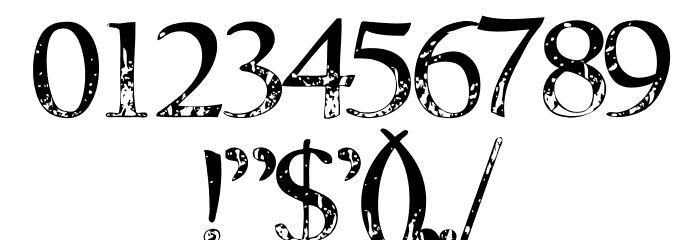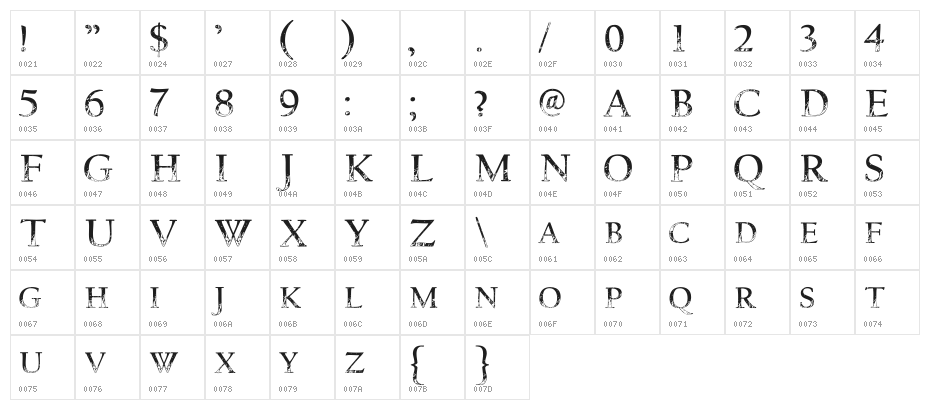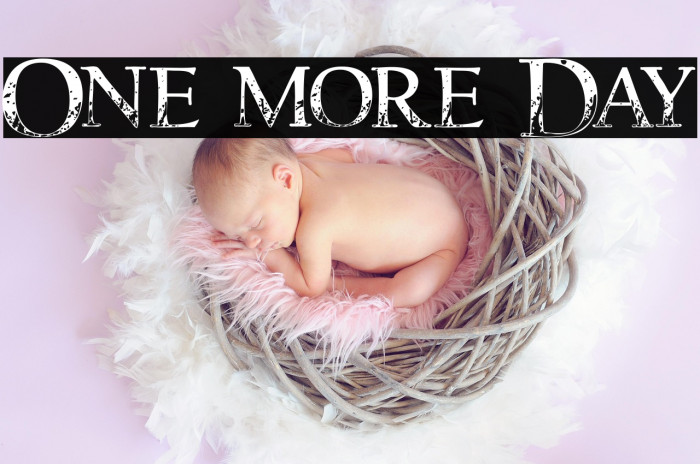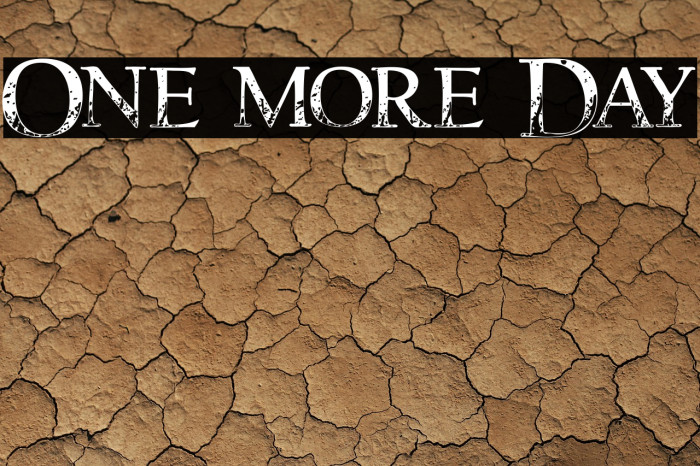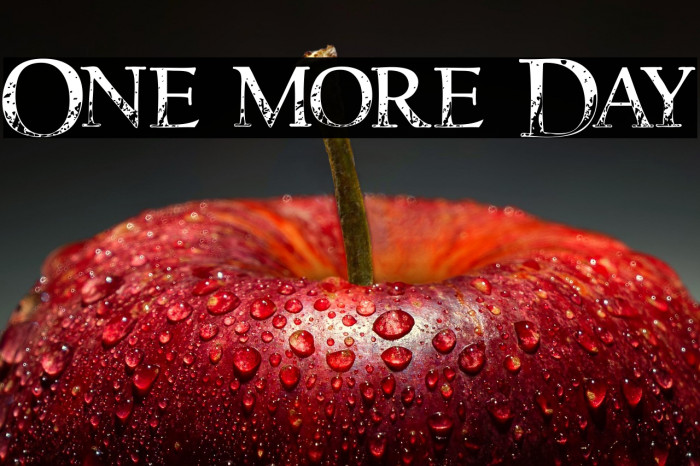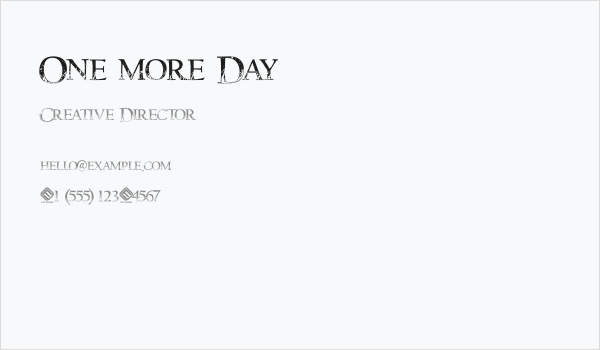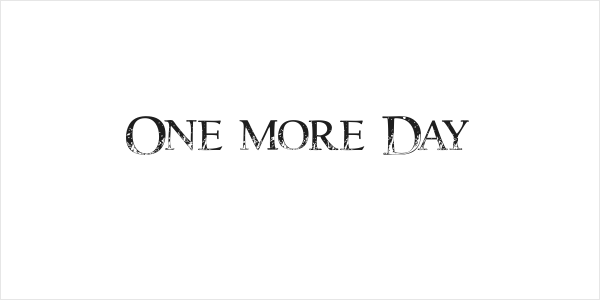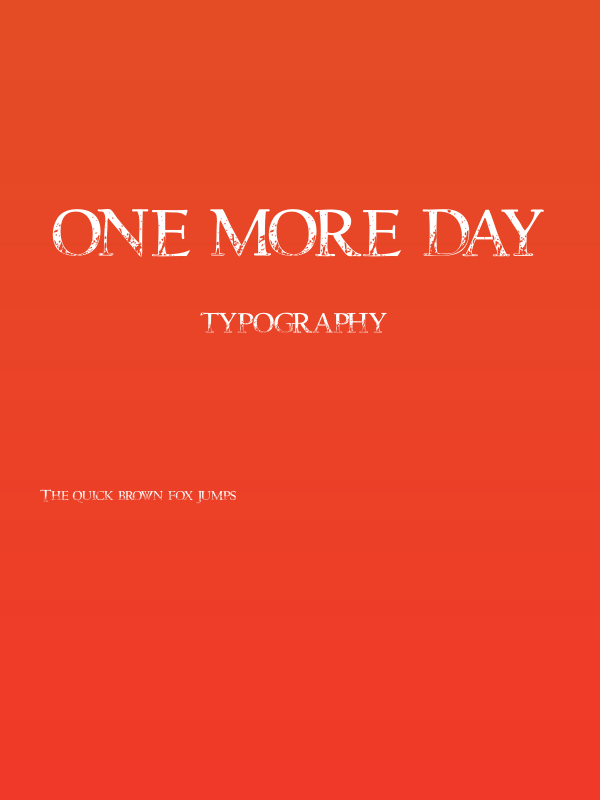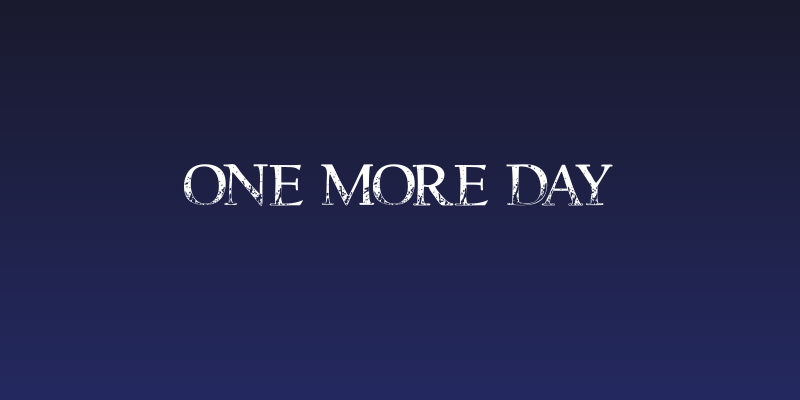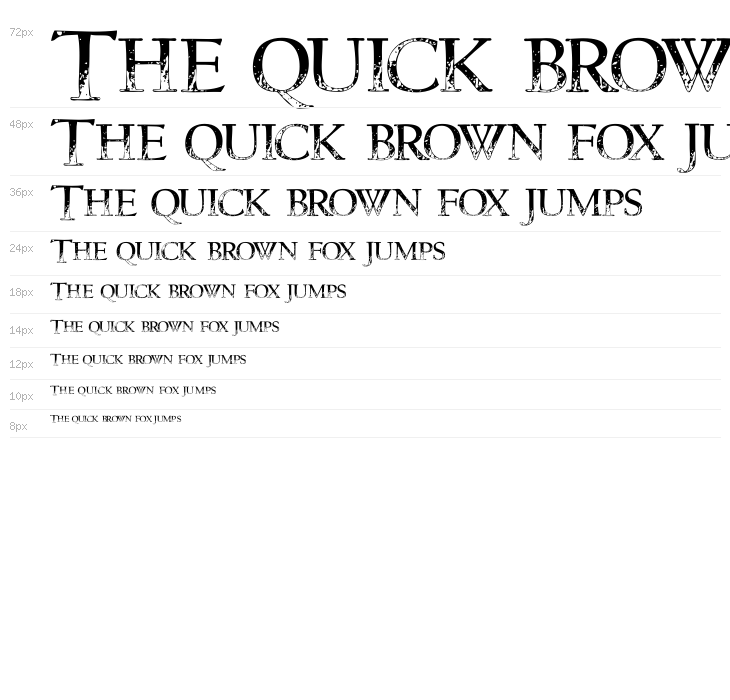
One more Day Font
One more Day Description
This font features a distressed, textured style that gives it a vintage and worn appearance. The characters are bold and have a serif design, with each letter displaying unique weathered patterns that add to its rustic charm. The uppercase letters are prominent and the numbers follow the same distressed aesthetic, making them stand out. The special characters, including punctuation marks, also carry the same textured look, ensuring consistency across all glyphs. This font is ideal for projects that require a touch of antiquity or a handcrafted feel.
| Proposed Projects | Ideal for vintage-themed posters, rustic branding, album covers, and creative design projects that require a handcrafted look. |